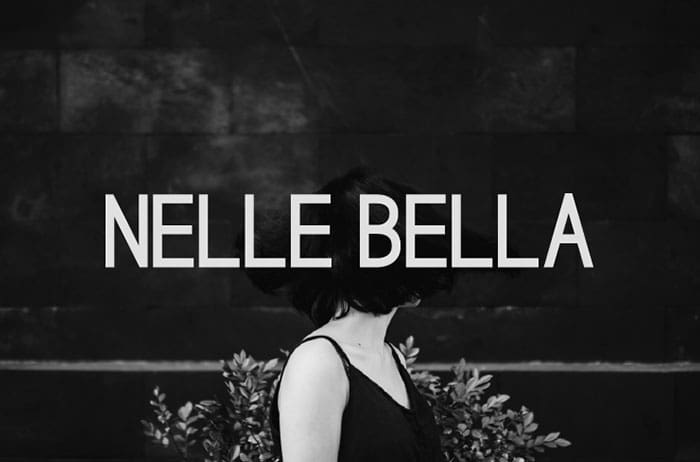
Nelle Bella Sans Serif Font
Nelle Bella is a distinct, elegant sans serif font. It looks modern and sophisticated and features extended characters that will look particularly adept when used in logos, branding, packaging design, and much more. This masterfully designed font is a true must-have. Thanks to Mas Anis for sharing this font! Take a look at this portfolio for more of his stunning fonts.